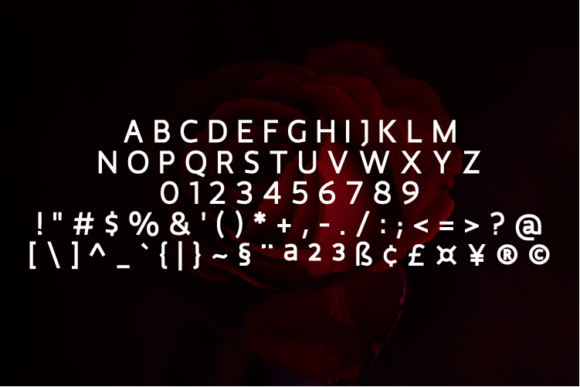
Introduction to Malibo Bold Font
Malibo is a distinct, elegant sans serif font that blends traditional influences into a contemporary aesthetic.
Its well balanced Latin details contain distinctive contrasts Use Malibo to achieve an exquisite, yet subtle look and maximum versatility.
Key Features of Malibo Bold Font